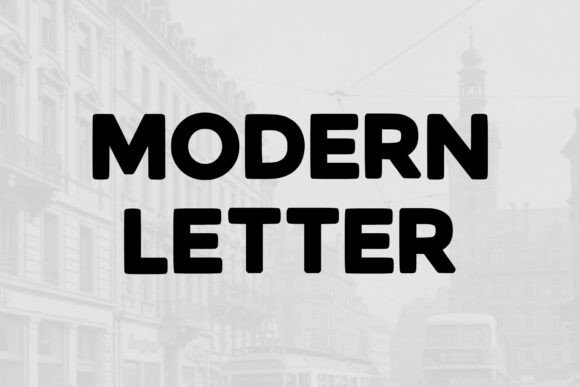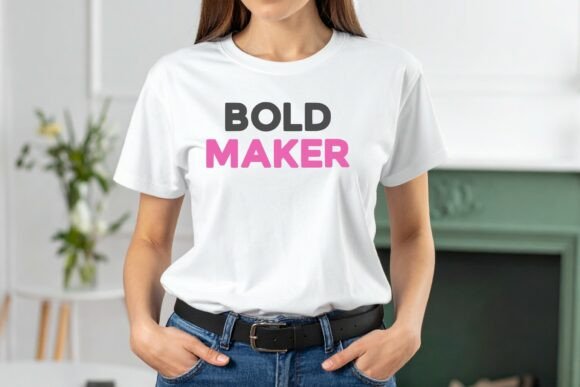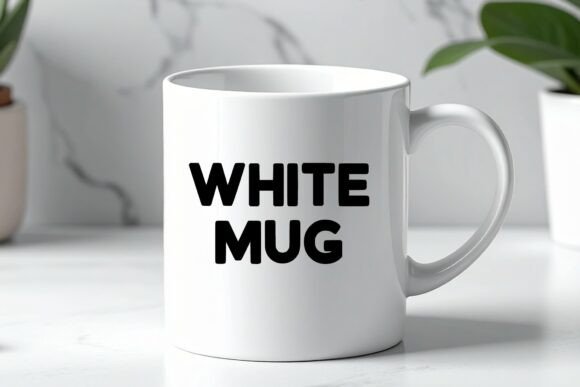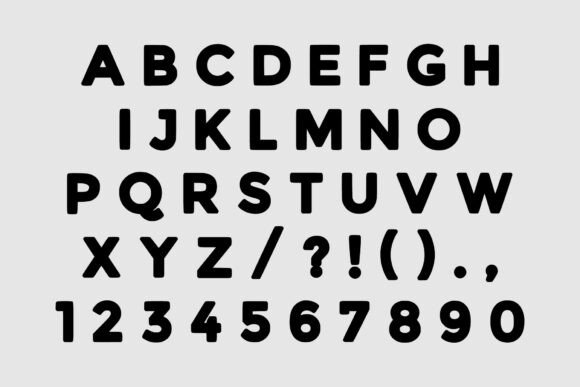
The Dream Limited Font: A Game-Changer for Bold Designs
Have you ever been in the middle of a design project, and suddenly, you’re stuck on finding the perfect font? I recall a recent experience where I was working on a branding project for a trendy new cafe. The client wanted a bold, eye-catching typography that would make their logo stand out. After hours of searching through font libraries, I stumbled upon the Dream Limited font. It was love at first sight! 💕
With its thick, powerful letterforms and clean contemporary style, Dream Limited instantly caught my attention. I knew right then and there that it was the perfect fit for the project. In this article, I’ll share my honest review of the Dream Limited font, provide a practical guide on how to use it, and explore similar fonts that might tickle your fancy.
An Honest Review of Dream Limited
- ✅ Bold and confident look: Dream Limited exudes a sense of confidence and style, making it perfect for logos, branding, and headlines.
- ✅ Clean and modern design: The font’s contemporary style ensures it looks great in both digital and print designs.
- ✅ Versatile: Dream Limited can be used for a wide range of projects, from posters and packaging to social media graphics and more.
While Dream Limited is an amazing font, there are a few minor things to consider:
- 🤔 Limited OpenType features: Compared to some other fonts, Dream Limited has limited OpenType features. However, it still offers some great stylistic alternates and glyphs.
- ⚠️ Not suitable for body text: Due to its bold nature, Dream Limited is not ideal for body text. It’s best used for headlines, titles, and short paragraphs.
If you’re looking for similar fonts or want to explore other options, here are a few alternatives:
- Museo: A elegant and modern sans-serif font perfect for luxury brands and high-end designs.
- Montserrat: A geometric sans-serif font great for modern and minimalist designs.
- Arial Black: A classic bold sans-serif font ideal for headlines and titles.
- Impact: A strong and condensed sans-serif font suitable for bold statements and eye-catching designs.
The Designer Inspiration Behind Dream Limited
While I couldn’t find any information on the exact designer behind Dream Limited, I like to imagine that it was created by a team of designers who wanted to craft a font that would make a bold statement. Perhaps they were inspired by modern architecture, sleek car designs, or cutting-edge technology. Whatever the inspiration, it’s clear that Dream Limited is a font designed to make an impact.
Q: Is Dream Limited suitable for body text?
A: No, Dream Limited is not ideal for body text due to its bold nature. It’s best used for headlines, titles, and short paragraphs.
Q: Does Dream Limited have any OpenType features?
A: Yes, Dream Limited offers some great OpenType features, including stylistic alternates and glyphs.